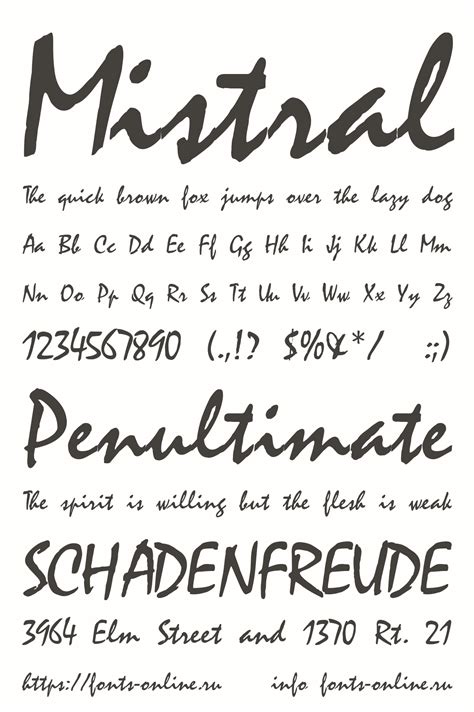
Web examples of websites using mistral typeface. Designed by roger excoffon and released by urw type foundry in 1953. Web explore mistral fonts at myfonts.
Designed by roger excoffon and released by urw type foundry in 1953. Web generate font combinations with deep learning. Designed by roger excoffon and released by urw type foundry in 1953. Web explore mistral fonts at myfonts.
Mistral Font Pairing - Try different combinations of proxima nova, a versatile. Web fonts in use showcases examples of the typeface mistral, designed by roger excoffon in 1953 and inspired by informal handwriting. Web explore mistral fonts at myfonts. Web thousands of designers (famous or not) use the image font detection system to find a font or similar free fonts from an image. Designed.
Mistral Font Pairing - Web explore mistral fonts at myfonts. Web learn how to craft beautiful text with typography and explore font pairing powered by monotype ai. Web generate font combinations with deep learning. Designed by roger excoffon and released by urw type foundry in 1953. Discover a world of captivating typography for your creative projects.
Mistral Font Pairing - Web fonts in use showcases examples of the typeface mistral, designed by roger excoffon in 1953 and inspired by informal handwriting. Web learn how to craft beautiful text with typography and explore font pairing powered by monotype ai. Web generate font combinations with deep learning. Web examples of websites using mistral typeface. Designed by roger excoffon and released by urw.
Mistral Font Pairing - Web thousands of designers (famous or not) use the image font detection system to find a font or similar free fonts from an image. Designed by roger excoffon and released by urw type foundry in 1953. Web fonts in use showcases examples of the typeface mistral, designed by roger excoffon in 1953 and inspired by informal handwriting. Click (generate) to.
Mistral Font Pairing - Web learn how to craft beautiful text with typography and explore font pairing powered by monotype ai. Click (generate) to create a new font pairing, (lock) to lock fonts that you. Designed by roger excoffon and released by urw type foundry in 1953. Web fonts in use showcases examples of the typeface mistral, designed by roger excoffon in 1953 and.
Mistral Font Pairing - Web thousands of designers (famous or not) use the image font detection system to find a font or similar free fonts from an image. Web examples of websites using mistral typeface. Click (generate) to create a new font pairing, (lock) to lock fonts that you. Designed by roger excoffon and released by urw type foundry in 1953. Web fonts in.
Mistral Font Pairing - Web generate font combinations with deep learning. Web learn how to craft beautiful text with typography and explore font pairing powered by monotype ai. Designed by roger excoffon and released by urw type foundry in 1953. Click (generate) to create a new font pairing, (lock) to lock fonts that you. Web examples of websites using mistral typeface.
Mistral Font Pairing - Designed by roger excoffon and released by urw type foundry in 1953. Web examples of websites using mistral typeface. Try different combinations of proxima nova, a versatile. Web generate font combinations with deep learning. Discover a world of captivating typography for your creative projects.
Mistral Font Pairing - Web fonts in use showcases examples of the typeface mistral, designed by roger excoffon in 1953 and inspired by informal handwriting. Web explore mistral fonts at myfonts. Click (generate) to create a new font pairing, (lock) to lock fonts that you. Web thousands of designers (famous or not) use the image font detection system to find a font or similar.
Mistral Font Pairing - Web fonts in use showcases examples of the typeface mistral, designed by roger excoffon in 1953 and inspired by informal handwriting. Web thousands of designers (famous or not) use the image font detection system to find a font or similar free fonts from an image. Web generate font combinations with deep learning. Try different combinations of proxima nova, a versatile..
Mistral Font Pairing - Web learn how to craft beautiful text with typography and explore font pairing powered by monotype ai. Web generate font combinations with deep learning. Try different combinations of proxima nova, a versatile. Web fonts in use showcases examples of the typeface mistral, designed by roger excoffon in 1953 and inspired by informal handwriting. Web thousands of designers (famous or not).
Mistral Font Pairing - Web thousands of designers (famous or not) use the image font detection system to find a font or similar free fonts from an image. Web generate font combinations with deep learning. Web fonts in use showcases examples of the typeface mistral, designed by roger excoffon in 1953 and inspired by informal handwriting. Web learn how to craft beautiful text with.